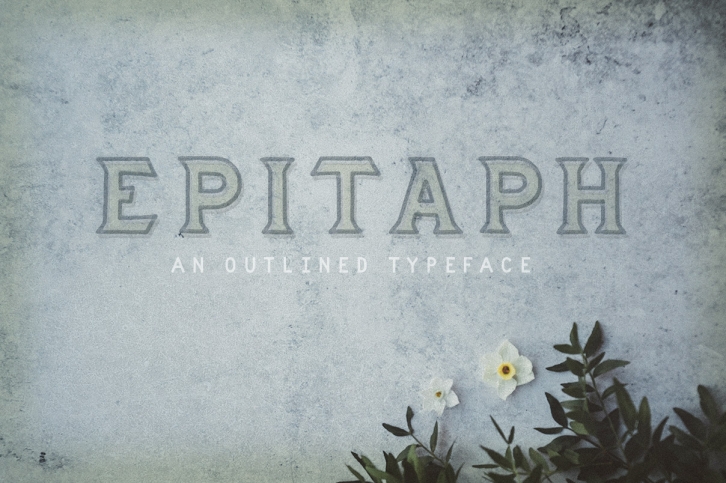
Epitaph is a beautiful font that was designed by JoshuaRed Design. It's a great choice for designers and creatives who need such a font. It was released on July 5, 2018 and the file size is 21.18 MB. Epitaph may give a more youthful, expressive and casual look to your project. It is a very beautiful, refined, elegant, and high-quality font.